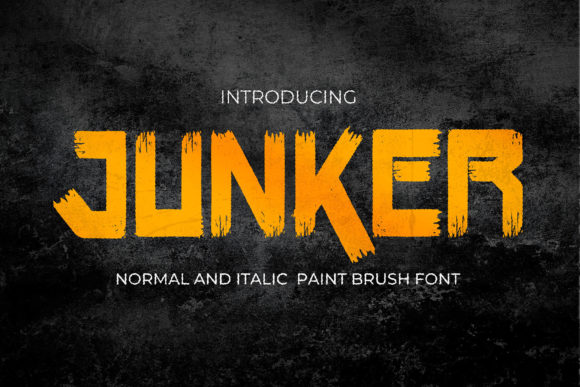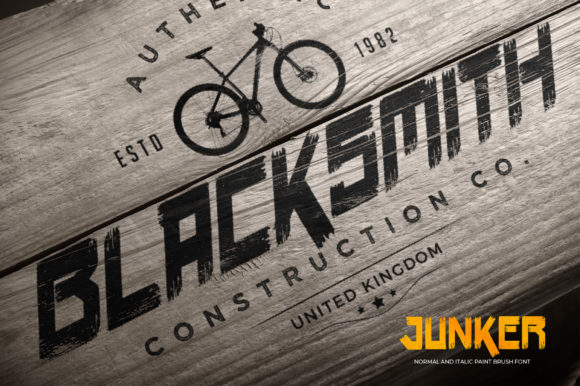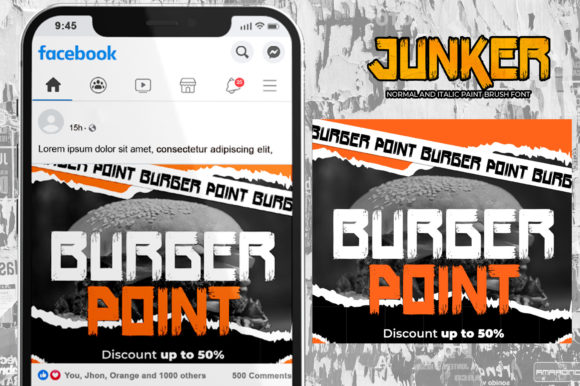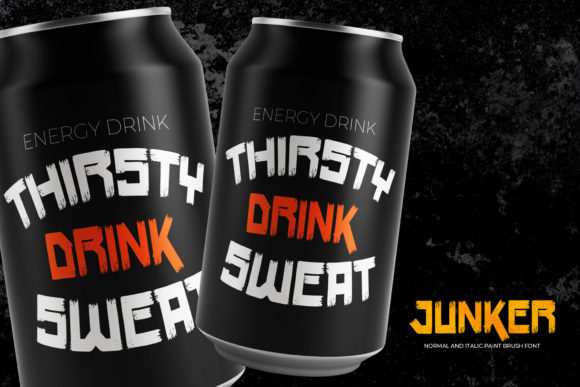
Junker Font: A Bold Brush Font for Unique Logo Design & Posters
About the Junker Font
The wait is over! The incredible Junker Font is now available for your design toolkit. Junker is an italic paint brush font with a natural style and dramatic movement. This font is great for creative projects like logos, printed quotes, invitations, cards, product packaging, headers, logotypes, letterhead, posters, or labels.
Junker’s bold, expressive strokes make it ideal for headlines, short impactful statements, and branding projects needing a touch of rebellious energy. It excels in applications like posters, packaging for creative products, and invitations where its dramatic flair adds visual interest. However, its italic style and brush texture make it less suitable for body text or UI elements requiring high readability.
Consider pairing Junker with a clean sans-serif like Open Sans for a balanced contrast, or a classic serif like Garamond for a more refined feel. For a playful effect, a geometric sans-serif such as Futura could work well.
Junker’s overall personality is energetic and artistic, best suited for brands projecting creativity, individuality, and a slightly edgy aesthetic. Avoid using it where a sophisticated or minimalist look is paramount.
Junker Font Usage Examples
Junker Font Example